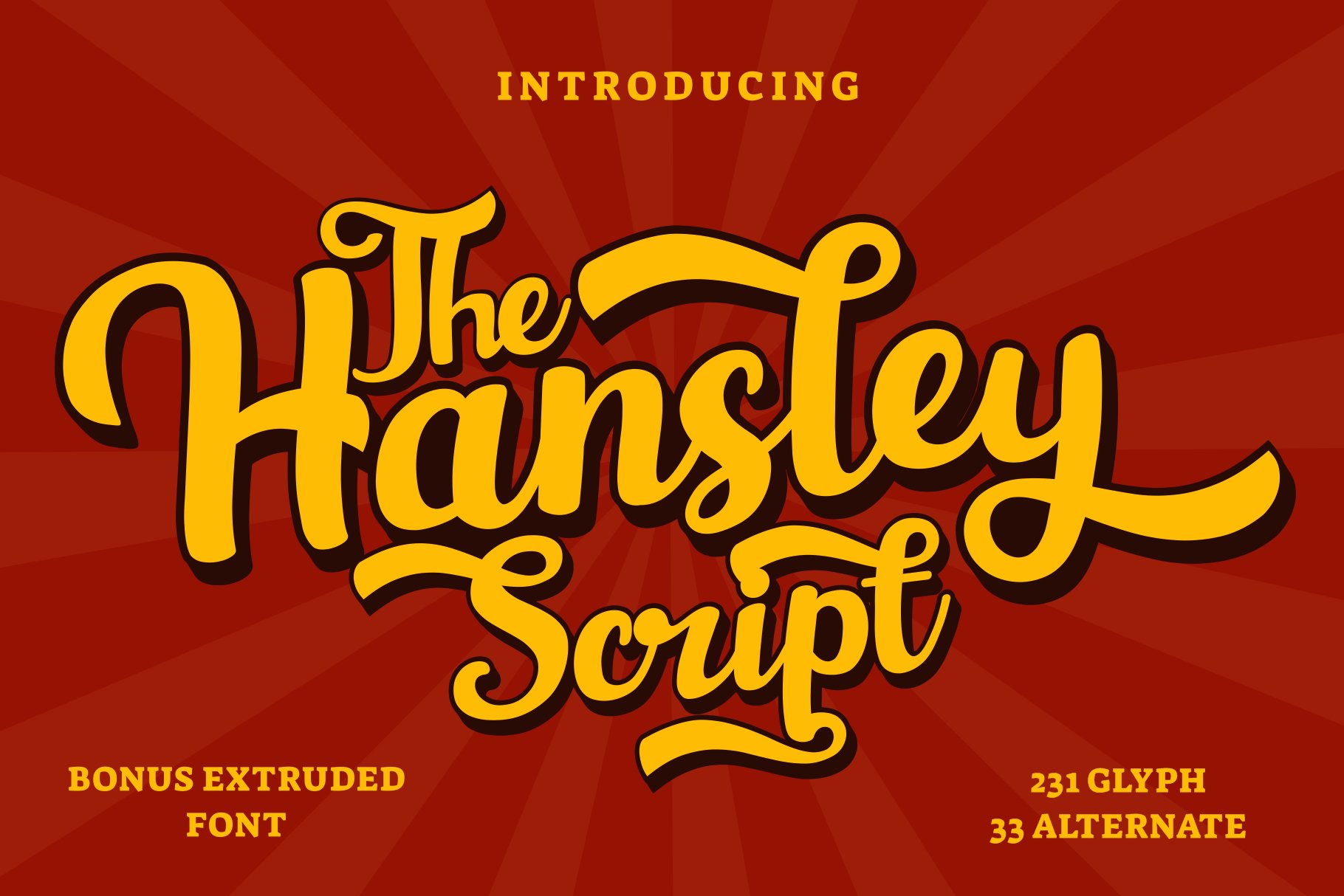
Hansley - Retro Font
Hansley - Retro Font is perfect for vintage poster designs, retro branding projects, nostalgic advertising campaigns, classic diner signage, vintage clothing labels, old-school gaming graphics, throwback marketing materials, and authentic period-themed designs.
Hansley - Retro Font is exciting because it captures the authentic spirit of bygone eras with distinctive letterforms and period-accurate styling that instantly transports viewers to classic design periods. Its nostalgic character creates immediate emotional connection and vintage authenticity that resonates perfectly with audiences seeking genuine retro experiences.
Hansley - Retro Font family includes regular weight with vintage alternates and decorative elements, providing designers with comprehensive options for creating authentic retro typography solutions that project period-specific character and nostalgic appeal.
Creative professionals consistently select Hansley - Retro Font for projects requiring historical authenticity and vintage visual impact. Its classic character works magnificently in themed restaurants, vintage boutiques, retro gaming applications, and nostalgic entertainment venues where period accuracy and atmospheric immersion drive customer engagement. The font's throwback nature creates memorable brand experiences that transport audiences to beloved classic eras.
Design teams appreciate Hansley - Retro Font's ability to create instant brand recognition through its distinctive vintage character and powerful nostalgic appeal. Its authentic period styling transcends contemporary design trends while maintaining the atmospheric impact required for retro market positioning, making it an essential tool for brands seeking to establish emotional connections through superior vintage typography and exceptional nostalgic communication.